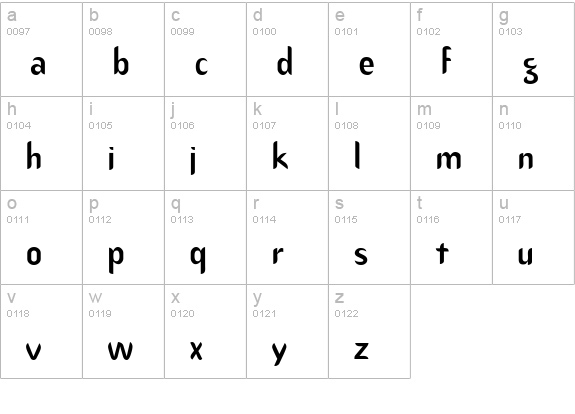
DanceSSK Font Details
DanceSSK font is a captivating and stylish typeface that will bring a touch of elegance and sophistication to any design project. This font is perfect for creating eye-catching headlines, logos, and branding materials. With its delicate curves and graceful lines, DanceSSK exudes a sense of movement and rhythm, making it the ideal choice for dance-related projects or any design that aims to convey a sense of dynamism. What sets DanceSSK font apart is its versatility. It can be used for both formal and informal designs, from wedding invitations to advertising materials. Its timeless appeal ensures that it will never go out of style, making it a valuable addition to any designer's toolkit. One of the best things about DanceSSK font is that it is freely available to download at FontsMarket.com. This means that you can use this stunning font in your projects without worrying about any licensing restrictions. Whether you are a professional designer or a hobbyist, you can access this font and incorporate it into your creations with ease. The quality and attention to detail in DanceSSK font are truly remarkable. Each character is meticulously crafted to perfection, ensuring that your text will always look polished and refined. The generous spacing between letters ensures legibility and readability, even at smaller sizes. Whether you are creating a poster, a website, or a magazine layout, DanceSSK font will add a touch of sophistication and elegance to your designs. With its timeless appeal and flawless execution, this font is guaranteed to make your projects stand out from the crowd. So why wait? Head over to FontsMarket.com now and download DanceSSK font for free. Start creating stunning designs that will leave a lasting impression.